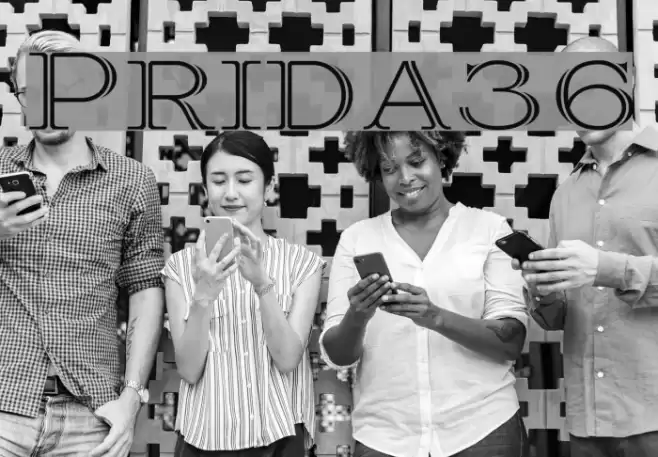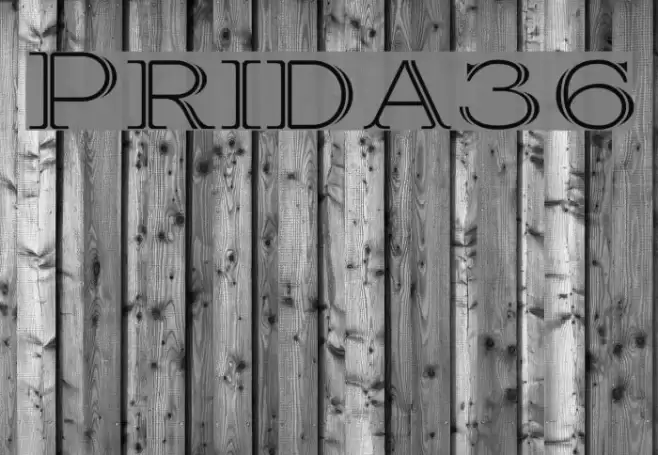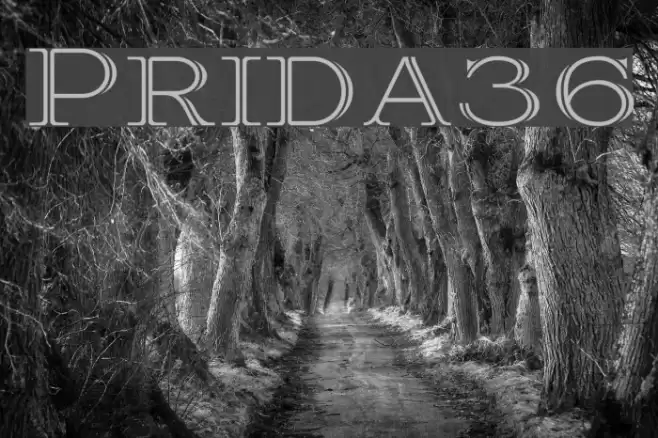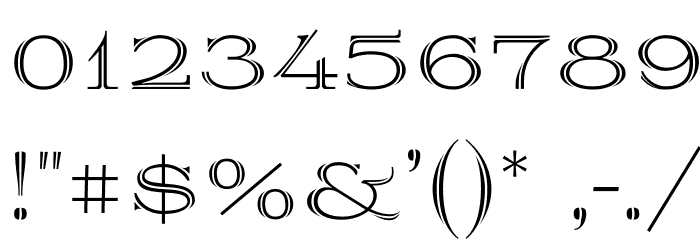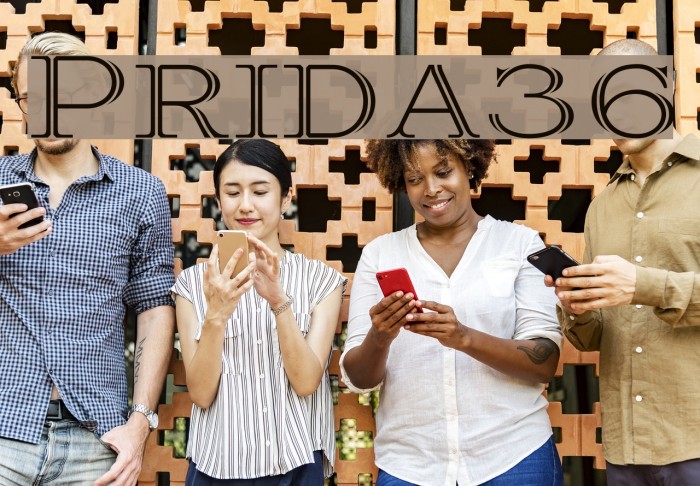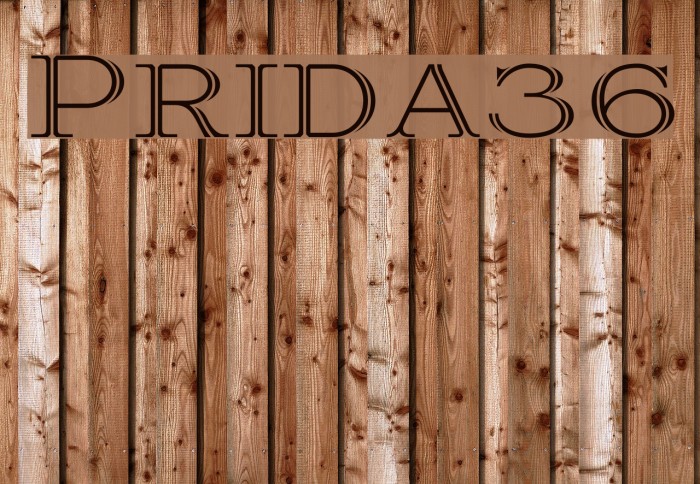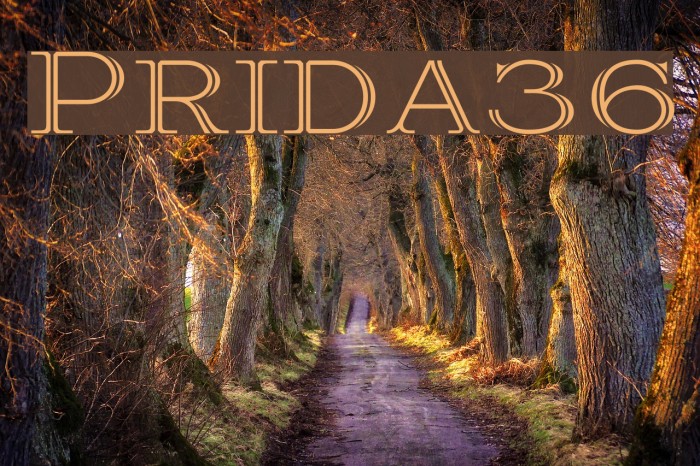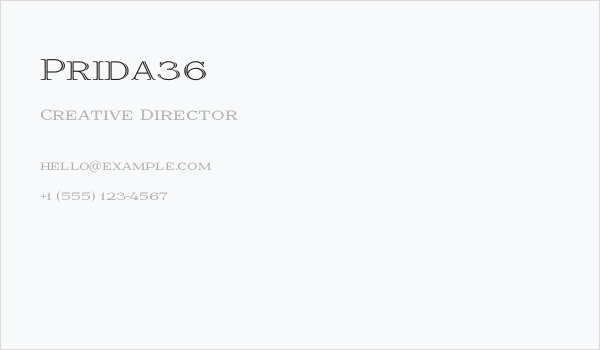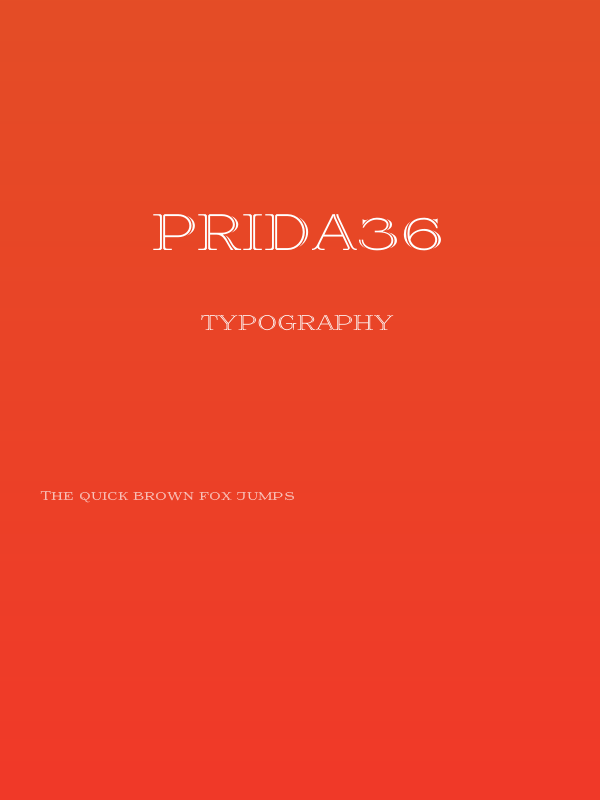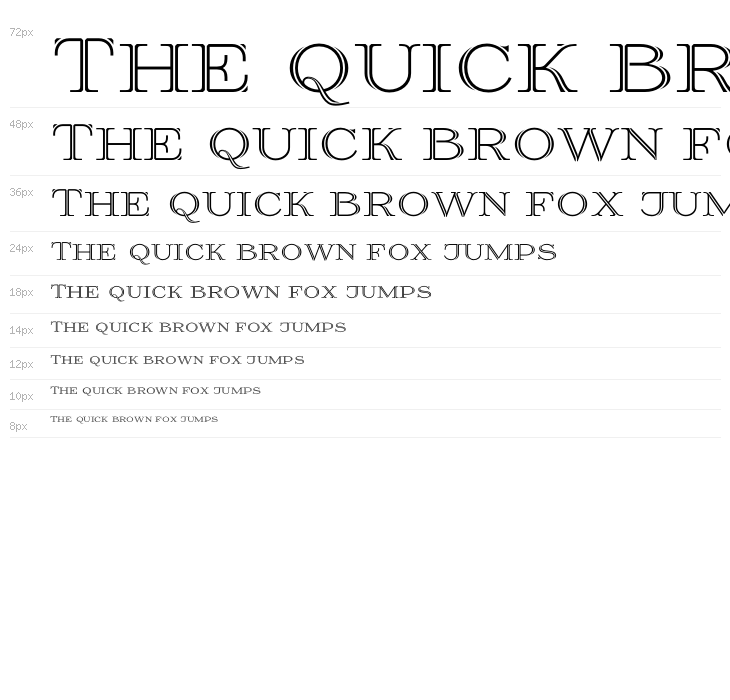
Prida36 Font
Prida36 Description
This font features a classic serif style with a modern twist, characterized by its elegant and refined lines. The letters are adorned with subtle serifs that add a touch of sophistication, while the overall structure remains clean and balanced. The uppercase and lowercase letters maintain a consistent design, ensuring readability and aesthetic appeal. The numerals are distinct and align well with the overall style, making them suitable for various applications. Special characters are thoughtfully designed, complementing the font's cohesive look. This font's unique blend of traditional and contemporary elements makes it versatile for a wide range of design projects.
A classic serif font with a modern twist, featuring elegant lines and subtle serifs from Uncategorized fonts.
- Proposed Projects: Ideal for branding, editorial design, invitations, and any project requiring a touch of elegance.
- Overall Style: Classic